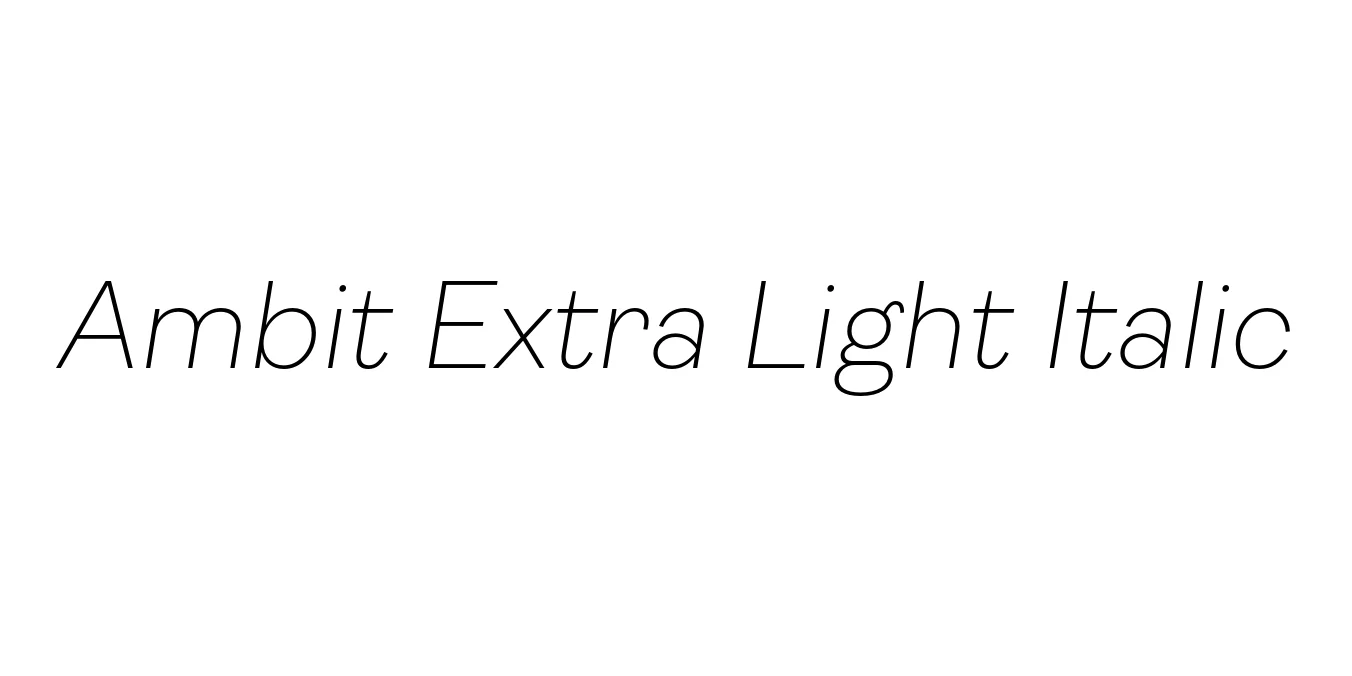
Ambit Extra Light Italic
Designed by Cobi Volkel
| Similar Fonts | Gotham, Montserrat, Avenir, Proxima Nova |
Ambit is an eccentric and distinctive sans-serif typeface designed by Cobi Volkel and released through CoType Foundry. It is inspired by early geometric grotesques but incorporates a unique twist with its unconventional proportions and idiosyncratic letterforms, giving it a modern, almost avant-garde appearance that stands out in a crowded market of clean sans-serifs.
The Extra Light Italic weight offers a delicate and sophisticated aesthetic, characterized by its sharp angles and rhythmic flow. It is part of a larger family of 7 weights, designed to be versatile across both print and digital environments, providing a perfect balance between functional legibility and expressive personality in high-end editorial and branding projects.
Ambit Extra Light Italic Best Uses
Perfect for pull quotes and sophisticated magazine layouts requiring a modern touch.
Ideal for high-end fashion, tech startups, or lifestyle brand identities.
Excellent for elegant subheadings and decorative user interface elements.
Adds a touch of modern luxury and precision to digital and print campaigns.